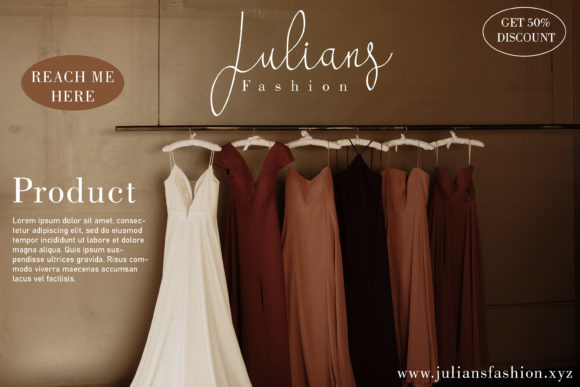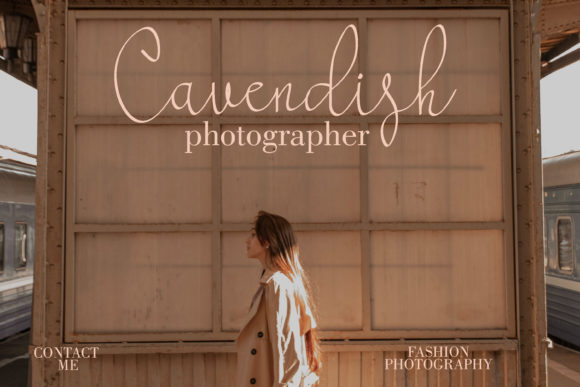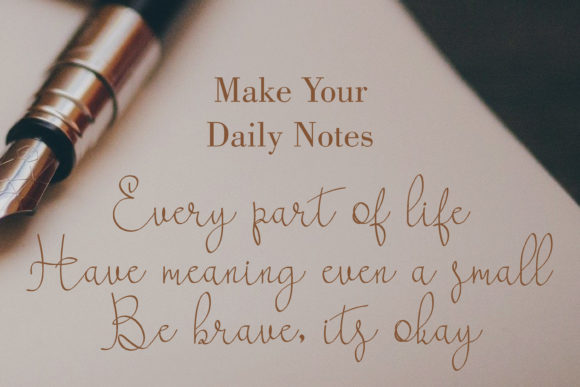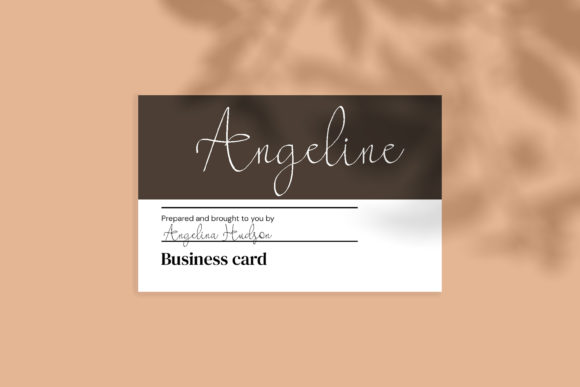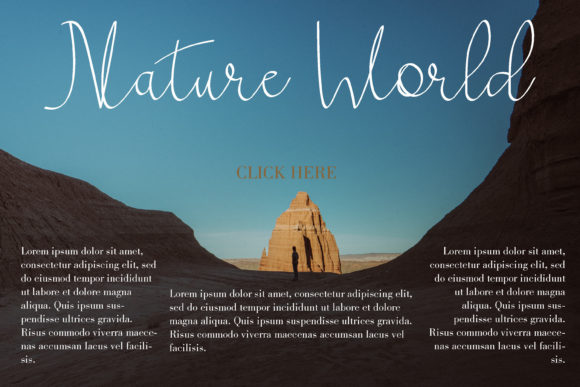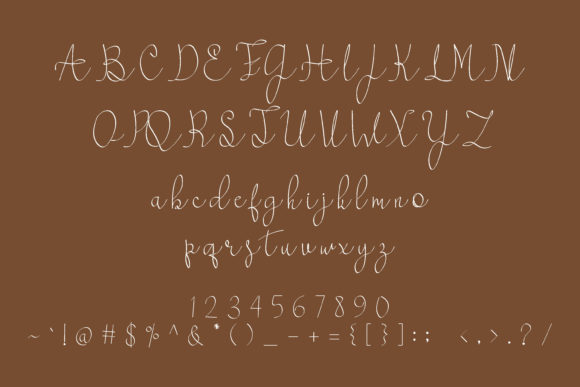
The Delicate Charm of Ameliatina Font: A Designer’s New Best Friend
I’ll never forget the time I was working on a project for a client who wanted a elegant and sophisticated look. I had spent hours browsing through font libraries, but nothing seemed quite right. That was when I stumbled upon Ameliatina Font – a delicate and thin lettered script font that instantly caught my eye. In this article, I’ll share my experience with Ameliatina, its features, and how to make the most of it in your designs.
An Honest Review of Ameliatina Font
What I Love About Ameliatina ✨
- 💫 Delicate and elegant appearance, perfect for adding a touch of sophistication to designs
- 🎨 Versatile and can be used for a variety of design projects, from branding to wedding invitations
- 🔍 OpenType features, including glyphs and stylistic alternates, offer a range of creative possibilities
- ⚠️ Limited use of bold or heavy font weights, which may not be suitable for all design projects
- 🤔 May not be the best choice for body text or long paragraphs, as it can be a bit too delicate
The Story Behind Ameliatina Font
Ameliatina was designed by a team of typographers who wanted to create a font that was both elegant and delicate. Inspired by classic calligraphy, Ameliatina features a range of OpenType features, including glyphs and stylistic alternates, that offer a range of creative possibilities. Whether you’re a designer, crafter, or creative hobbyist, Ameliatina is a versatile font that’s sure to add a touch of sophistication to your designs.
Q: What is Ameliatina Font?
A: Ameliatina Font is a delicate and thin lettered script font that’s perfect for adding a touch of elegance and sophistication to designs.
Q: Is Ameliatina suitable for body text?
A: While Ameliatina is a beautiful font, it may not be the best choice for body text or long paragraphs, as it can be a bit too delicate.